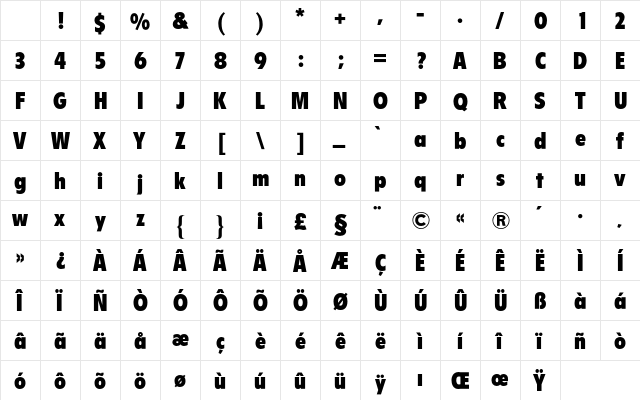
Complete Flyer BQ Regular glyph index. Displaying only characters natively supported by Flyer BQ Regular font.
Flyer BQ is a composed and adaptable typeface that performs quietly and consistently across a wide range of design contexts.